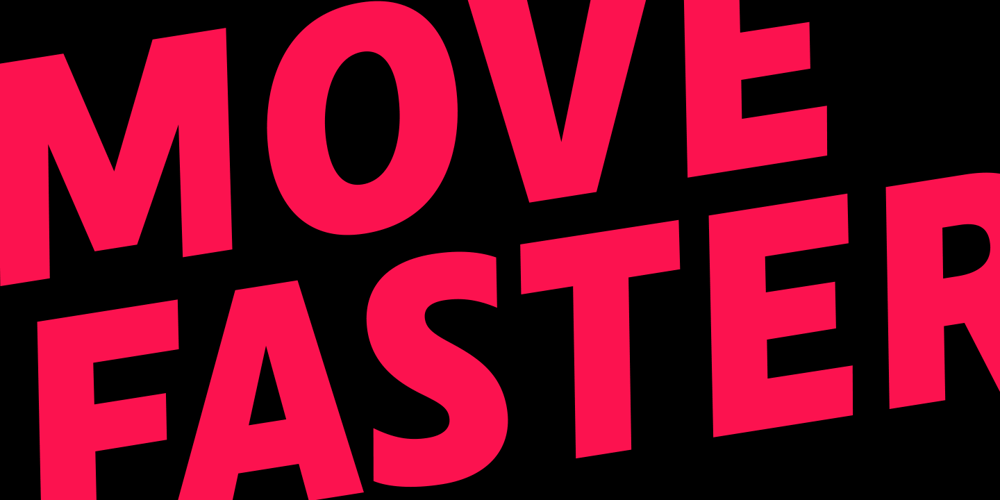
Calton
Calton font
Calton Font Family was designed by Teo Tuominen and published by LetterMaker. Calton contains 24 styles and family package options. Calton is a utilitarian workhorse sans serif family. It’s designed to work in as many environments as possible, from small text to big headlines. The roman and italic styles work well for any typographical situation while the stencil really packs a punch and shines as a display family. The design has a hint of familiarity from classical humanist sans serifs, but the proportions are much more economical and the detailing is distinctly modern. All styles come in eight weights, from Thin to Black and the family is well suited for film and TV, advertising, editorial design, packaging, branding, logo, sports, web and screen design. The family is available in multiple bundle options so check out the different choices. The family package is available with a bargain price.